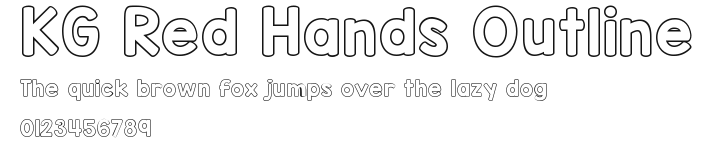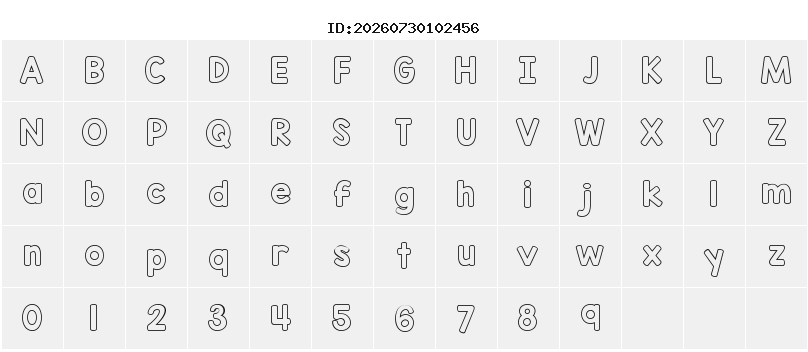
• Font Name: KG Red Hands Outline
• Font ID: KimberlyGeswein: KG Red Hands Outline: 2014
• Full Font Name: KG Red Hands Outline
• Designer: Kimberly Geswein
• Manufacturer: Kimberly Geswein
About KG Red Hands Outline.ttf
KG Red Hands Outline.ttf is a modern, elegant sans-serif font designed for ultimate readability and visual harmony. Perfect for branding, headlines, web design, and print materials.